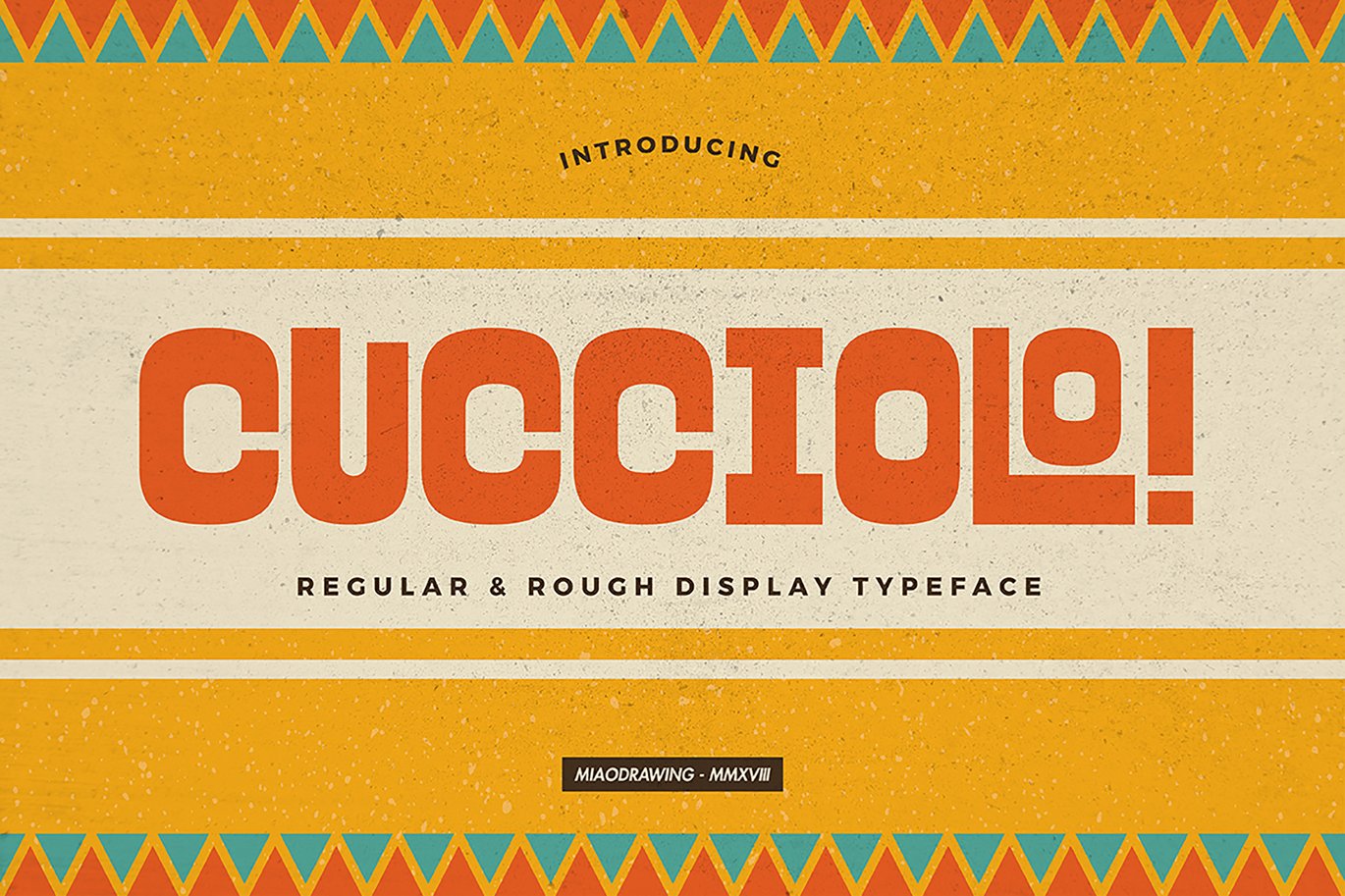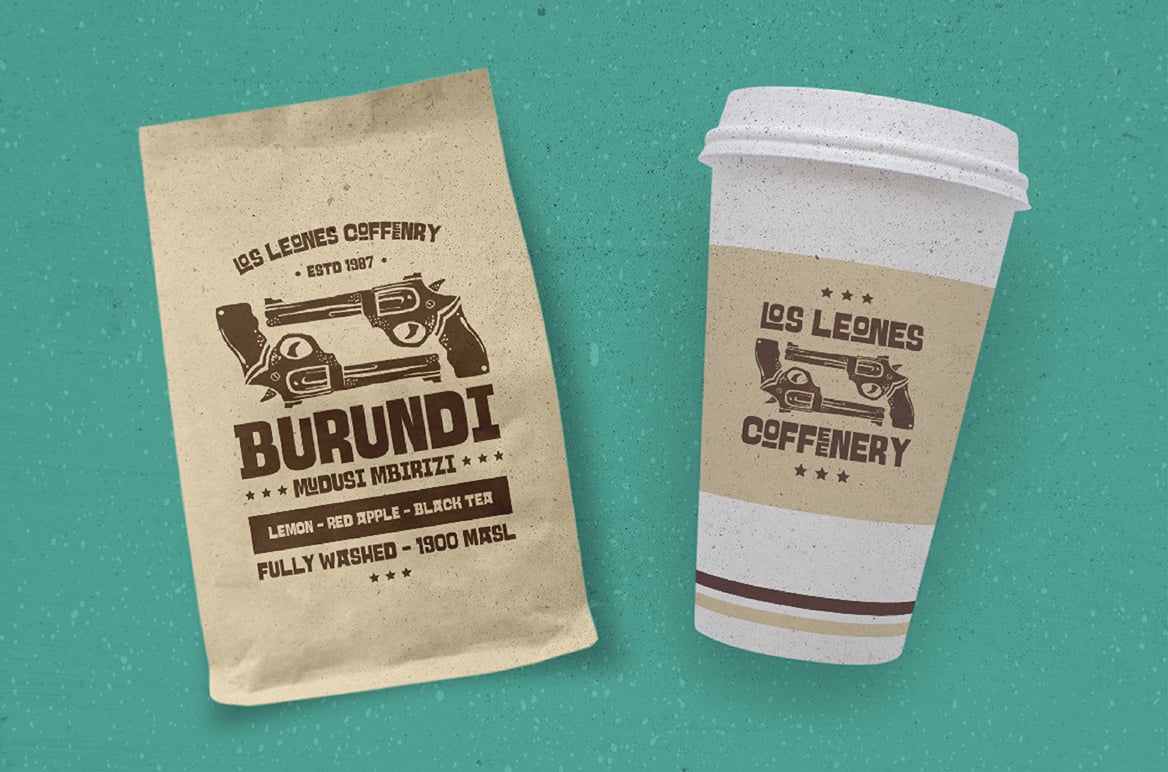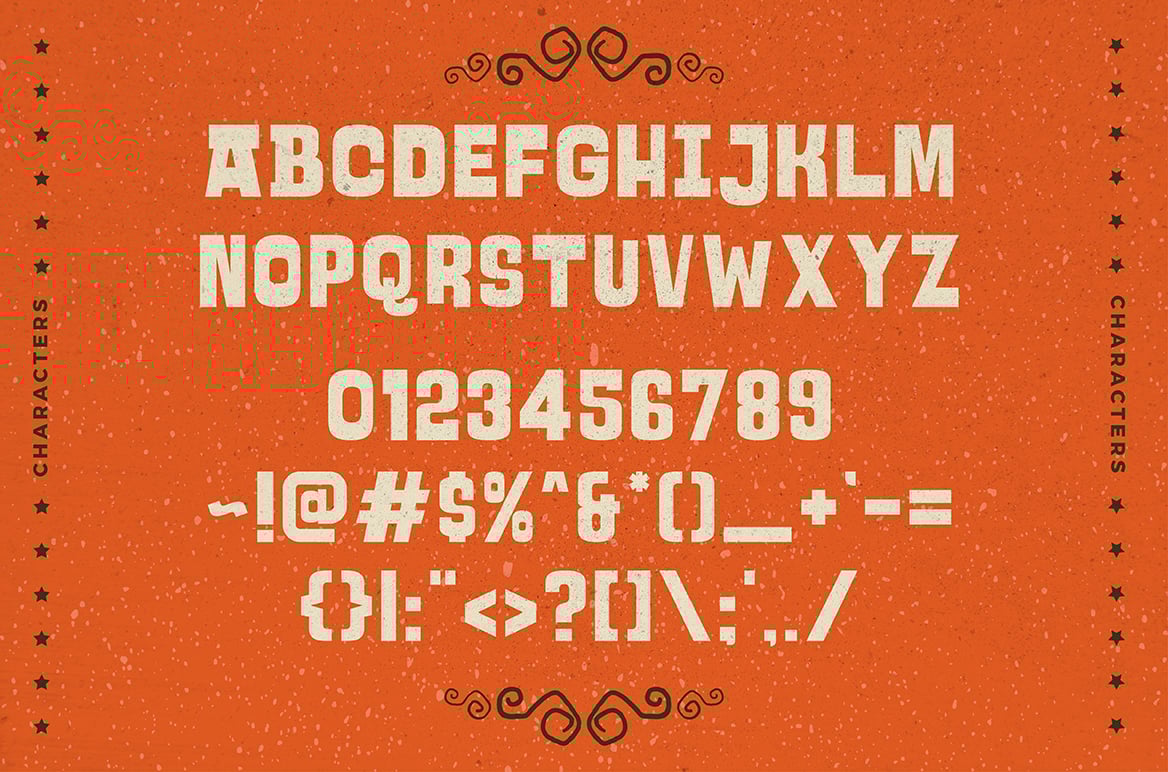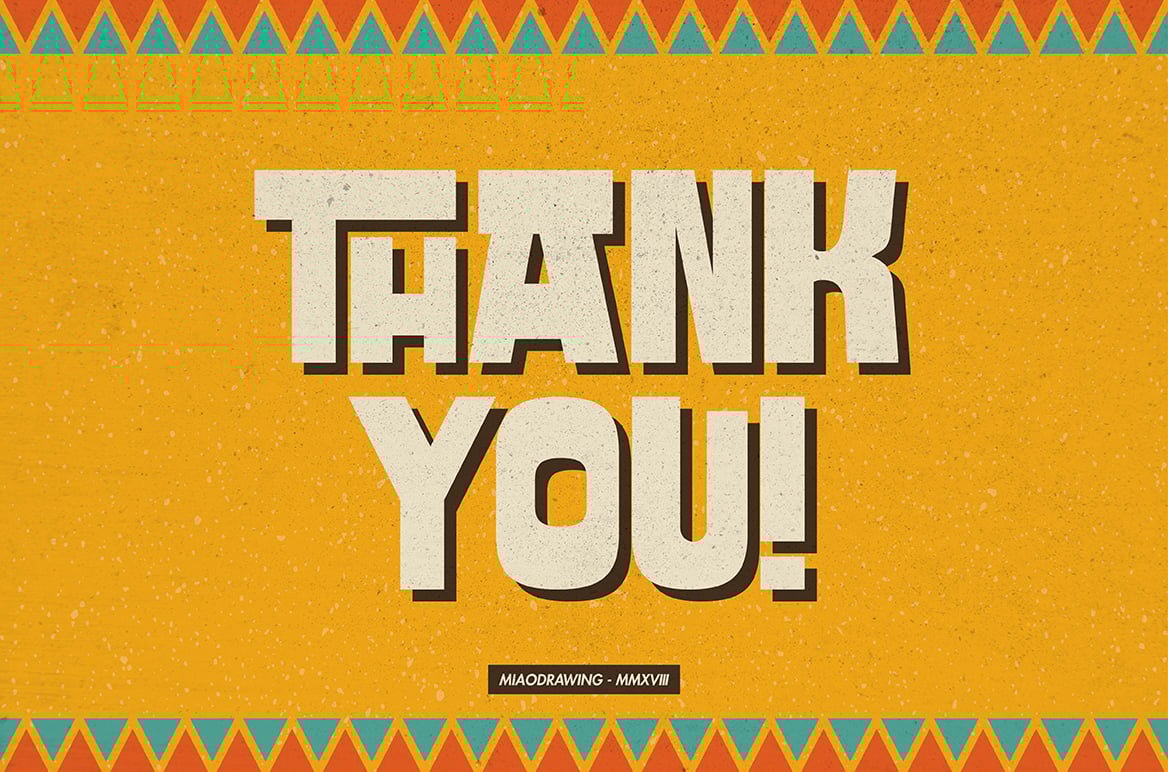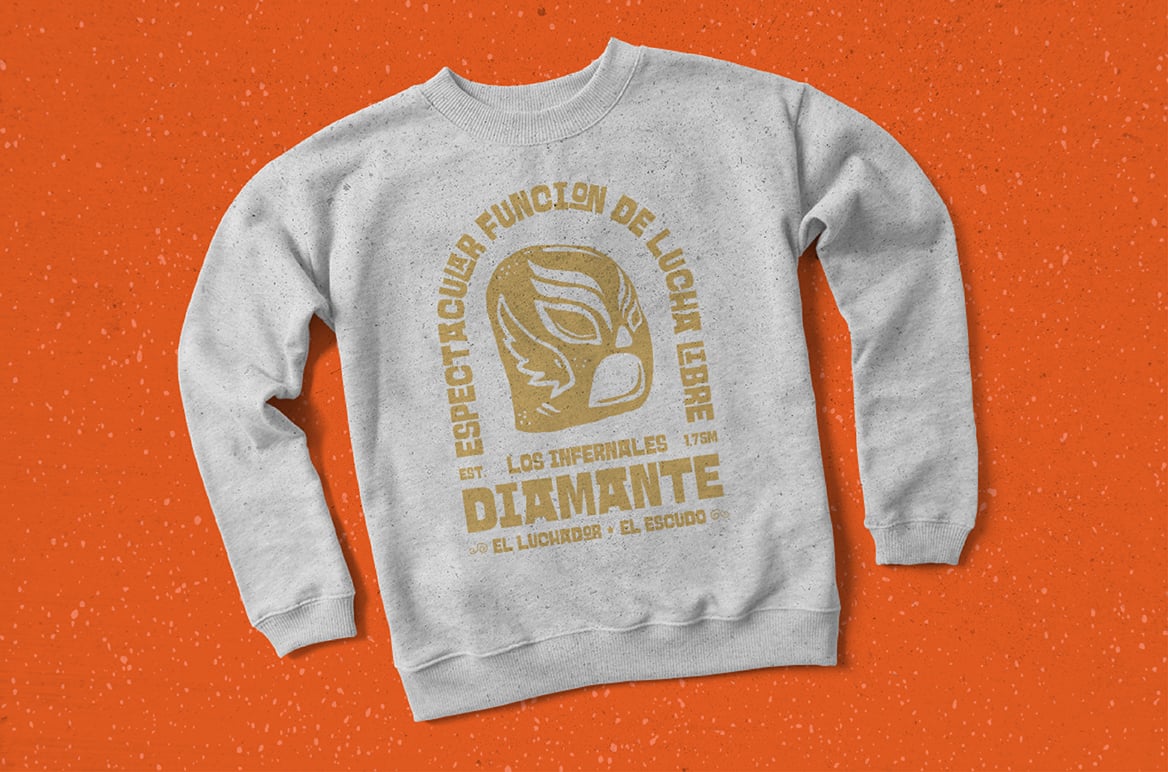
Cucciolo Typeface
Cucciolo Typeface inspired by Mexican culture although the name are from Italian words meaning baby animal, but it’s 100% suitable for any Mexican, cowboy, or something strong, bold, also fancy and fun. Comes up with handmade extras with the vintage poster style that you can use, combine, or mix and match with each other and also with the typeface. Absolutely perfect for everyone who’d like to add a ‘wild west’ or ‘lucha libre’ designs, suitable for poster, logotype, apparel designs, or any design requirements.
Cucciolo Features :
- Numerals & Punctuations
- Badges & Vector Illustration